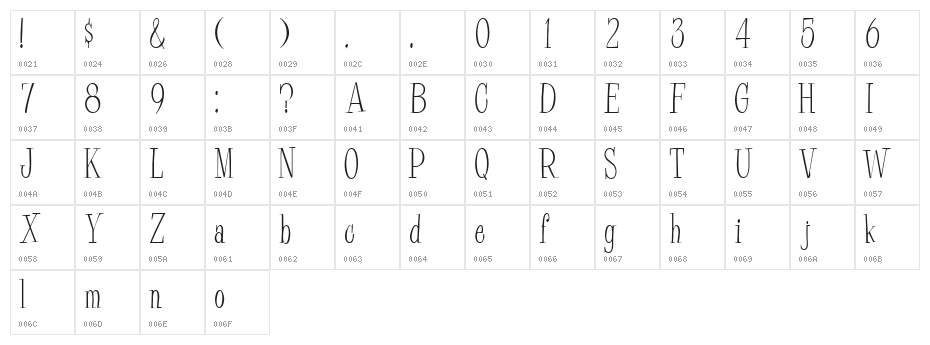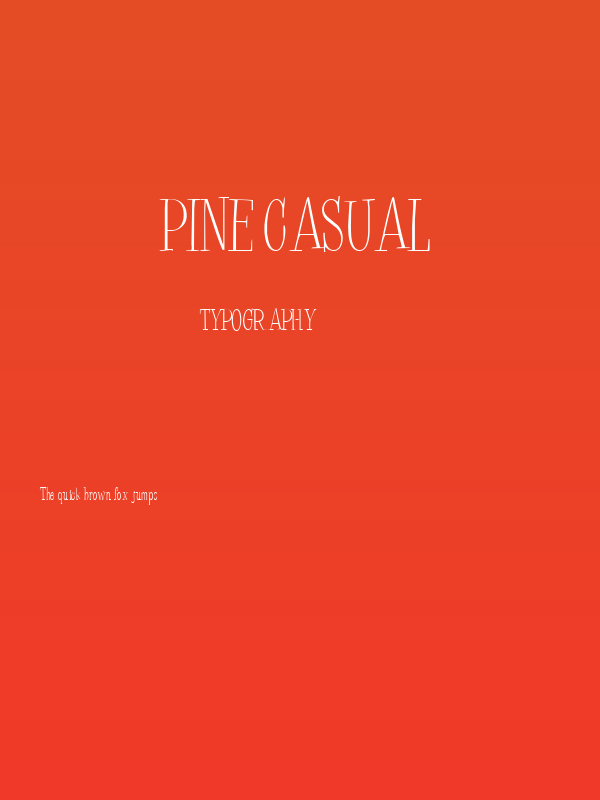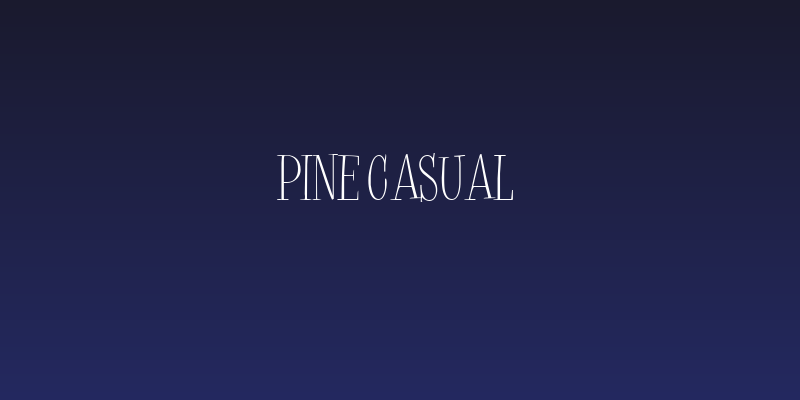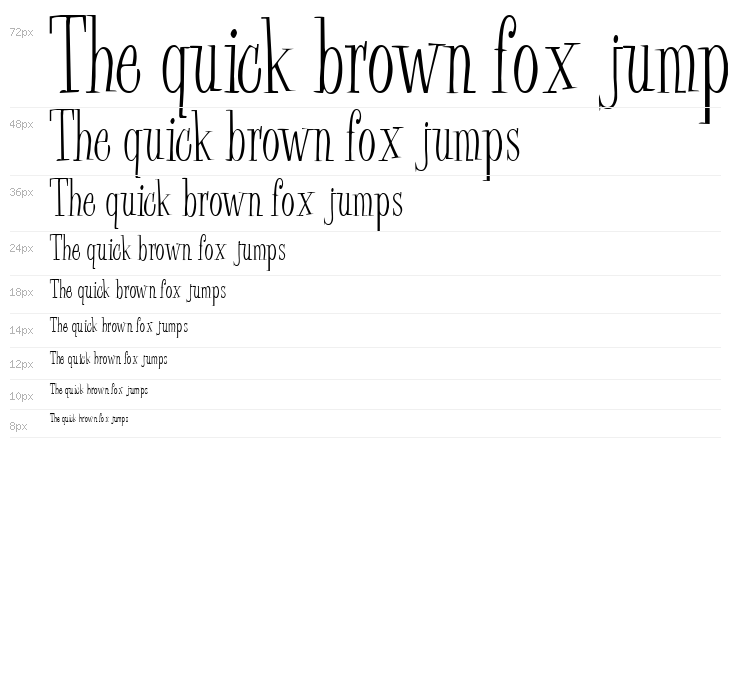
Pine Casual Font
Pine Casual Description
This font features a unique blend of elegance and casual flair, characterized by tall, slender letterforms with a slight slant. The uppercase letters exhibit a refined, elongated structure, while the lowercase letters maintain a playful, yet sophisticated appearance. The numerals are consistent with the overall style, offering a harmonious balance between the characters. Special characters are designed with a creative touch, enhancing the font's versatility. The strokes are thin with a medium contrast, providing a delicate yet readable appearance. This font is ideal for projects that require a touch of elegance without sacrificing readability.